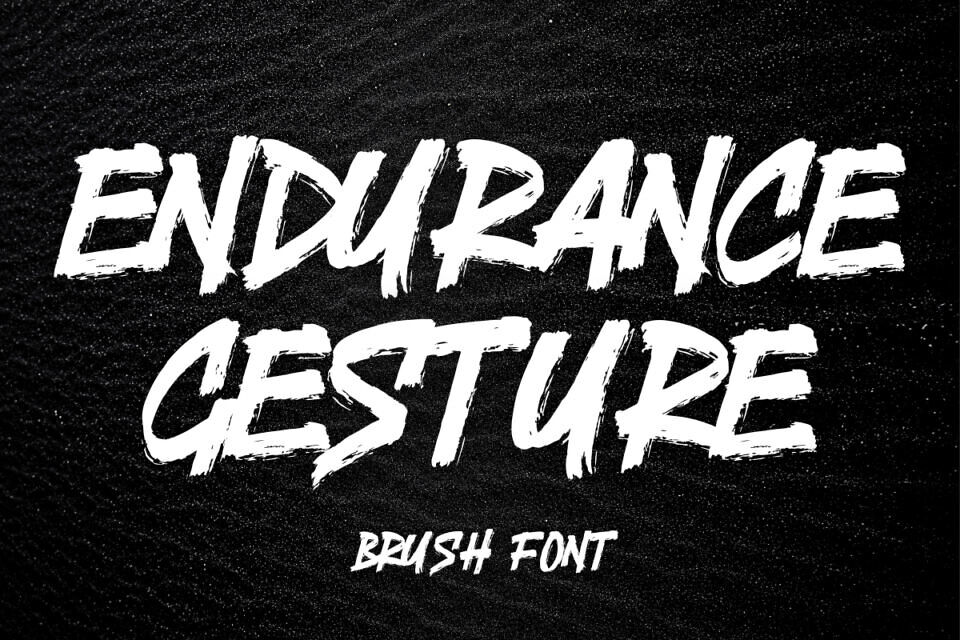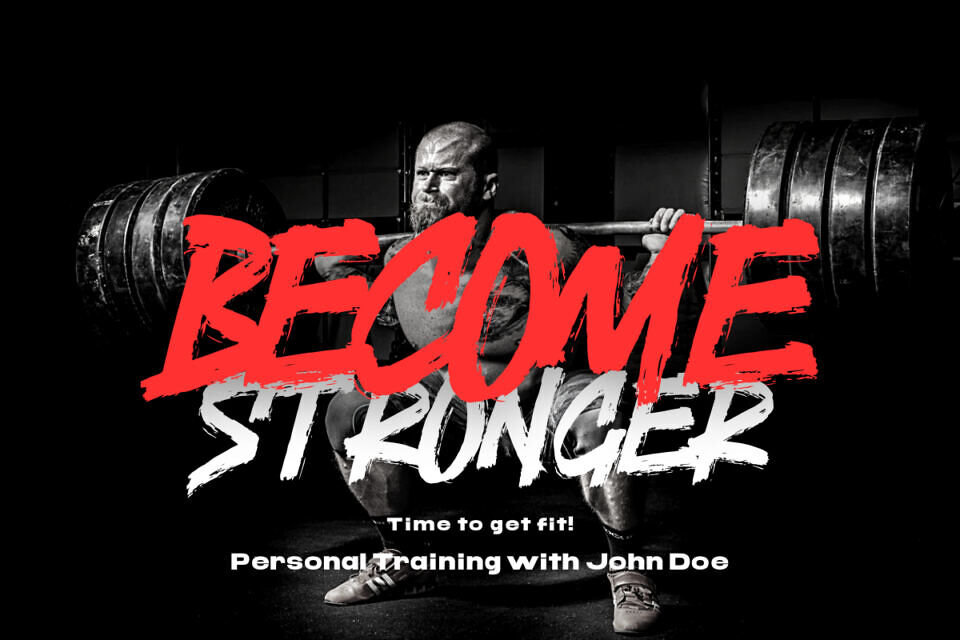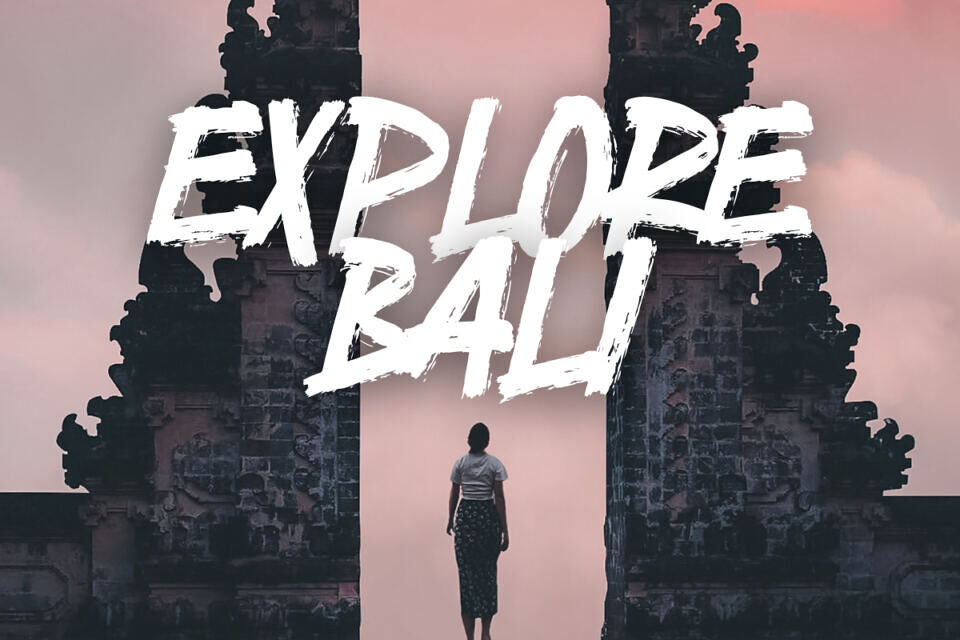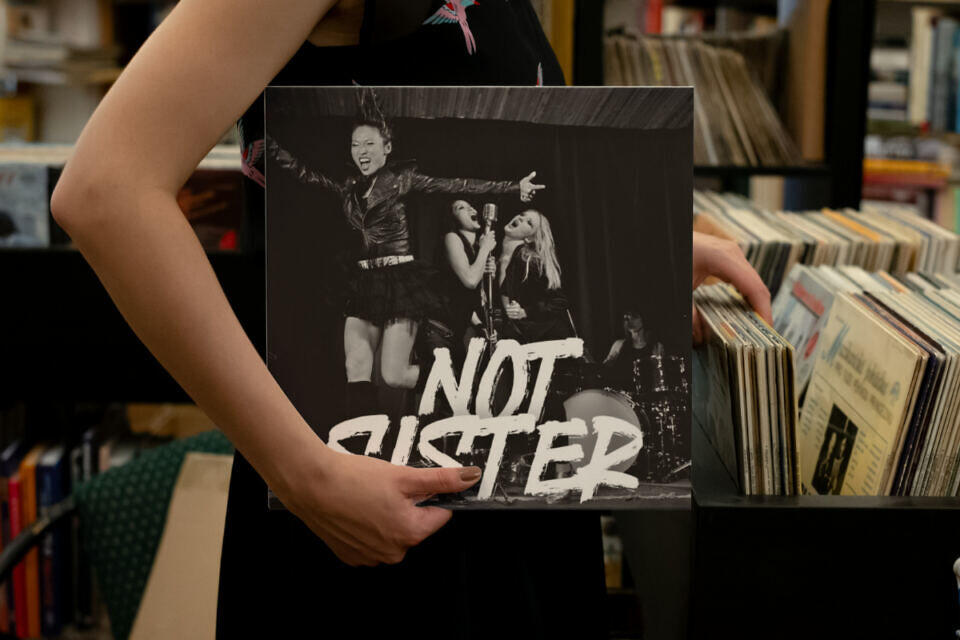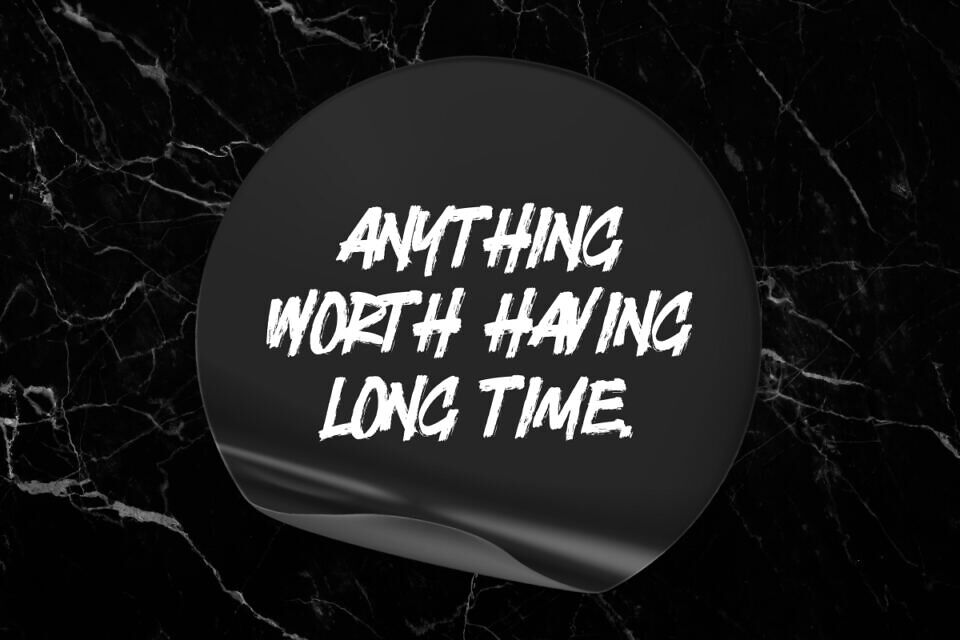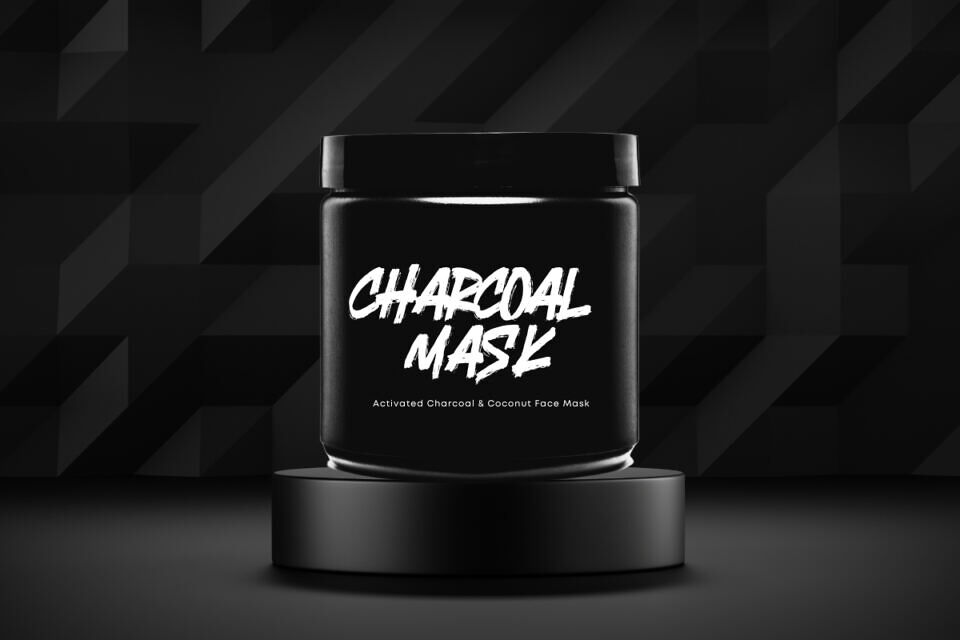
Endurance Gesture is a bold and energetic all-caps brush display font, designed to bring dynamic and expressive visuals to your creative projects. With its authentic brush strokes and hand-crafted feel, this font is perfect for making a statement in any design.